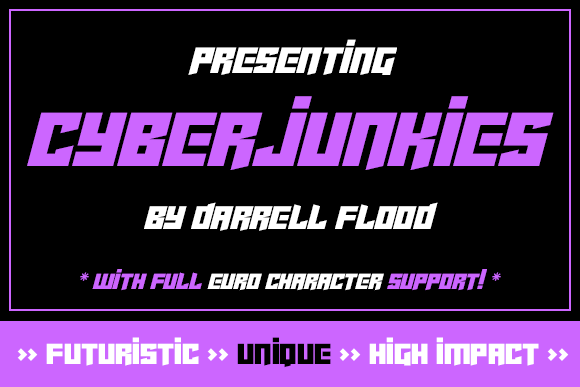
Cyberjunkies Font: The Ultimate Choice for Futuristic Designs
In the world of typography, fonts play a crucial role in conveying the tone and aesthetic of a design. When it comes to creating futuristic and sci-fi themed designs, the right font can make all the difference. This is where Cyberjunkies font comes in – a sleek, angular, and modern font that’s perfect for adding a touch of futurism to your designs.
What is Cyberjunkies Font?
Cyberjunkies font is a futuristic font designed to evoke a sense of high-tech futurism. Its sleek and angular lines give it a modern and edgy feel, making it perfect for designs that require a bold and avant-garde look. The font’s unique design elements, such as its sharp edges and geometric shapes, make it stand out from more traditional fonts.
Key Features of Cyberjunkies Font
So, what makes Cyberjunkies font so special? Here are some of its key features:
- Sleek and Angular Design: Cyberjunkies font boasts a sleek and angular design that’s perfect for creating futuristic and sci-fi themed designs.
- Modern and Edgy Feel: The font’s modern and edgy feel makes it perfect for designs that require a bold and avant-garde look.
- Geometric Shapes: The font’s use of geometric shapes, such as sharp edges and pointed lines, gives it a unique and futuristic look.
- High-Tech Futurism: Cyberjunkies font is designed to evoke a sense of high-tech futurism, making it perfect for sci-fi themes and alien designs.
Use Cases for Cyberjunkies Font
Cyberjunkies font is perfect for a wide range of design projects, including:
- Sci-Fi Themes: The font’s futuristic design makes it perfect for sci-fi themed designs, such as movie posters, book covers, and video game titles.
- Alien Designs: The font’s otherworldly look makes it perfect for designs that feature alien characters or extraterrestrial themes.
- Futuristic Logos: Cyberjunkies font is perfect for creating futuristic logos for tech startups, robotics companies, or any business that wants to convey a sense of innovation and forward-thinking.
- Video Game Titles: The font’s bold and edgy design makes it perfect for video game titles, especially those that feature sci-fi or futuristic themes.
How to Use Cyberjunkies Font
Benefits of Using Cyberjunkies Font
So, why should you use Cyberjunkies font for your design projects? Here are some benefits:
- Unique and Futuristic Look: Cyberjunkies font gives your designs a unique and futuristic look that sets them apart from more traditional fonts.
- High-Quality Design: The font is designed with high-quality lines and geometric shapes, making it perfect for professional-grade designs.
- Easy to Read: Despite its futuristic design, Cyberjunkies font is easy to read, making it perfect for body text and headings.
In conclusion, Cyberjunkies font is a futuristic font that’s perfect for sci-fi themes and alien designs. Its sleek and angular design, modern and edgy feel, and geometric shapes make it a unique and interesting font that’s sure to add a touch of futurism to your designs. Whether you’re working on a video game title, a sci-fi movie poster, or a futuristic logo, Cyberjunkies font is a great choice.
Q: What is Cyberjunkies font?
A: Cyberjunkies font is a futuristic font designed to evoke a sense of high-tech futurism.
Q: What are the key features of Cyberjunkies font?
A: The font’s key features include its sleek and angular design, modern and edgy feel, and geometric shapes.
Q: What are some use cases for Cyberjunkies font?
A: Cyberjunkies font is perfect for sci-fi themes, alien designs, futuristic logos, and video game titles.